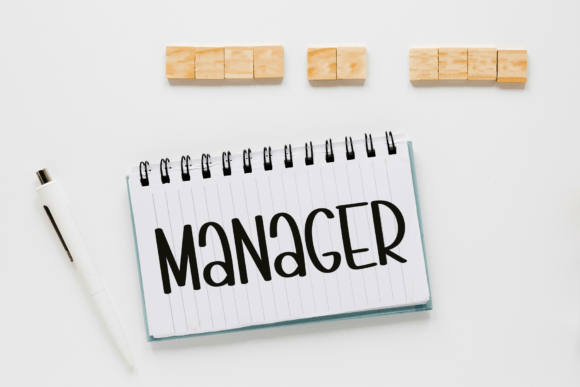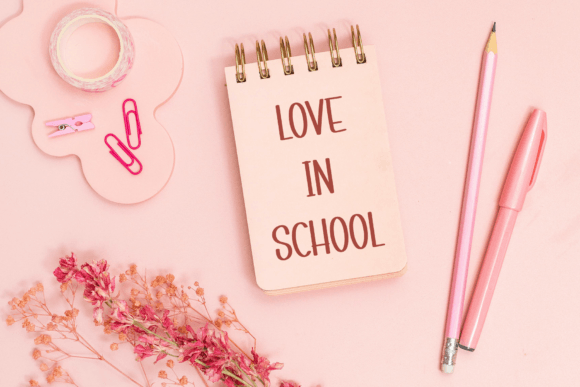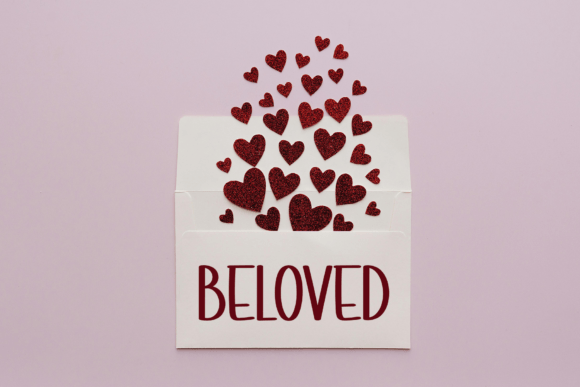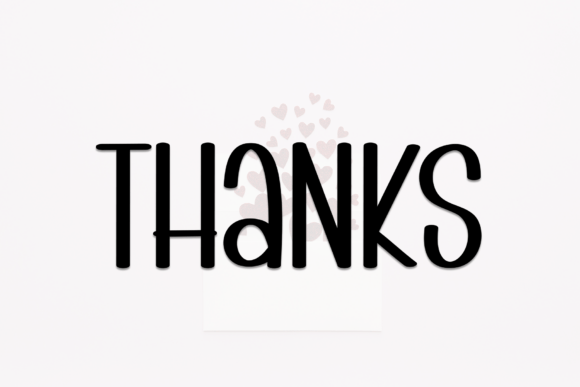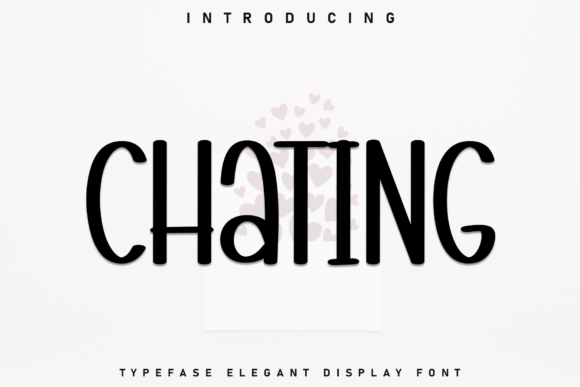
Introducing Chating Font: The Perfect Blend of Relaxed and Luxurious
Are you tired of using the same old fonts for your designs? Look no further than Chating Font, a handwritten font that exudes a relaxed and sporty feel. With its unique marker-drawn aesthetic, Chating Font is perfect for designers and crafters looking to add a touch of elegance and sophistication to their work.
What is Chating Font?
Chating Font is a carefully crafted handwritten font that mimics the look of writing with a marker. Its casual, laid-back vibe makes it an excellent choice for a wide range of design applications, from branding and logos to wedding supplies, greeting cards, and marketing promotions.
Key Features of Chating Font
- Handwritten with a marker feel: Chating Font boasts a distinctive, hand-drawn look that gives it a personal and approachable feel.
- Relaxed and sporty: The font’s casual style makes it perfect for designs that require a laid-back, effortless vibe.
- Luxurious and elegant: Despite its casual nature, Chating Font still manages to convey a sense of sophistication and luxury, making it ideal for high-end designs.
- Versatile: Chating Font can be used for a wide range of design applications, including branding, logos, wedding supplies, greeting cards, fashion, lookbooks, and marketing promotions.
Use Cases for Chating Font
So, how can you use Chating Font in your designs? Here are a few ideas to get you started:
- Branding and logos: Create a memorable brand identity with Chating Font, perfect for lifestyle, fashion, and beauty brands.
- Wedding supplies: Add a personal touch to your wedding stationery, invitations, and decorations with Chating Font.
- Greeting cards: Create beautiful, heartfelt greeting cards for special occasions with Chating Font.
- Fashion and lookbooks: Use Chating Font to add a touch of elegance and sophistication to your fashion designs and lookbooks.
- Marketing promotions: Stand out from the crowd with Chating Font, perfect for creating eye-catching marketing materials.
Why Choose Chating Font?
With so many fonts to choose from, why should you choose Chating Font? Here are just a few reasons:
- Unique and distinctive: Chating Font’s marker-drawn aesthetic sets it apart from other fonts, ensuring your designs will stand out.
- Easy to read: Despite its handwritten nature, Chating Font is surprisingly easy to read, making it perfect for body text and headlines.
- Customizable: Experiment with different colors, sizes, and styles to make Chating Font your own.
Tips for Using Chating Font
To get the most out of Chating Font, here are a few tips to keep in mind:
- Pair with contrasting fonts: Combine Chating Font with a contrasting font to create visual interest and hierarchy.
- Experiment with colors: Try out different colors and textures to add depth and personality to your designs.
- Use it sparingly: Don’t be afraid to use Chating Font sparingly to create emphasis and draw attention to specific design elements.
Chating Font is a versatile and stylish font that’s perfect for designers and crafters looking to add a touch of elegance and sophistication to their work. With its unique marker-drawn aesthetic, relaxed and sporty feel, and luxurious vibe, Chating Font is sure to become a go-to font in your design arsenal. So why wait? Try Chating Font today and take your designs to the next level!